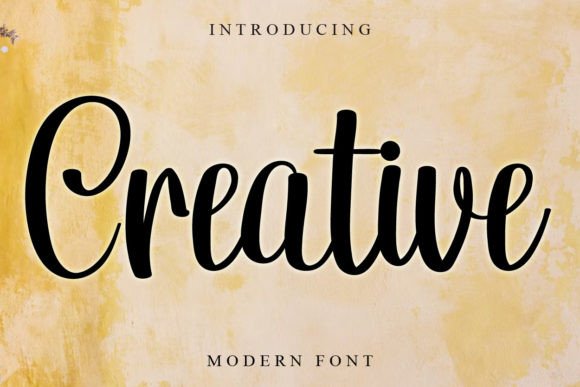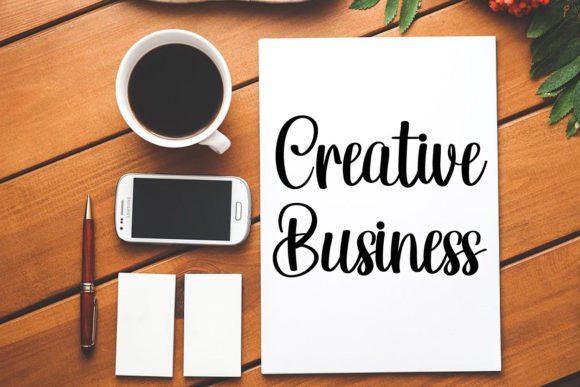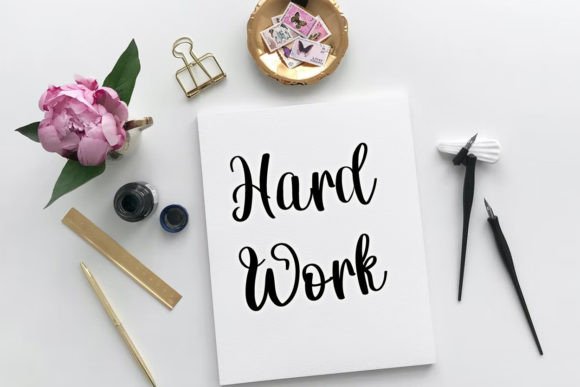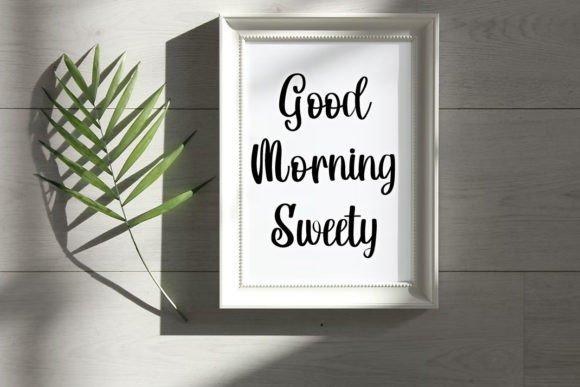
**Creative Font: Elevate Your Designs with Freshness and Beauty**
Introducing “Creative,” a font that breathes fresh air into your designs, enhancing a spectrum of creative projects with its unique and beautiful aesthetics. Whether you’re working on YouTube banners, cover logo mockups, wedding invitations, ID cards, flyers, or engaging in craft projects, Creative proves to be a versatile and powerful font that not only elevates the visual appeal but also catalyzes progress and development for your business.
**Versatility for All Occasions:**
Creative is designed to seamlessly integrate into various design contexts. From the dynamic realm of YouTube banners to the refined elegance of wedding invitations, and from the professional look of ID cards to the eye-catching appeal of flyers and crafts, Creative emerges as a font that adapts effortlessly to different creative scenarios.
**Progress and Development for Your Business:**
Utilizing the Creative font is not just about adding style; it’s a strategic choice for advancing and developing your business. This font injects a level of sophistication and uniqueness that can set your brand or project apart, leaving a lasting impression on your audience and contributing to the overall growth of your endeavors.
**Simplicity Meets Uniqueness:**
Creative strikes a harmonious balance between simplicity and uniqueness. Its straightforward design ensures easy readability while maintaining a distinctiveness that guarantees your designs stand out. In a world inundated with visual stimuli, the simplicity of Creative becomes a strength, drawing attention without overwhelming the viewer.
As you incorporate Creative into your design toolkit, you’re not merely choosing a font; you’re selecting a catalyst for inspiration and progress. Watch as your projects transform into visual delights, with every curve and contour enhancing the overall aesthetic.
**Choose Creative for Beauty and Progress:**
Creative is more than a font; it’s a creative ally that adds a touch of freshness and elegance to your projects. Embrace its simplicity and uniqueness, allowing it to be the driving force behind your design endeavors. Select Creative to infuse your creations with a sense of beauty and progress, and witness the positive impact it has on your business and creative pursuits.